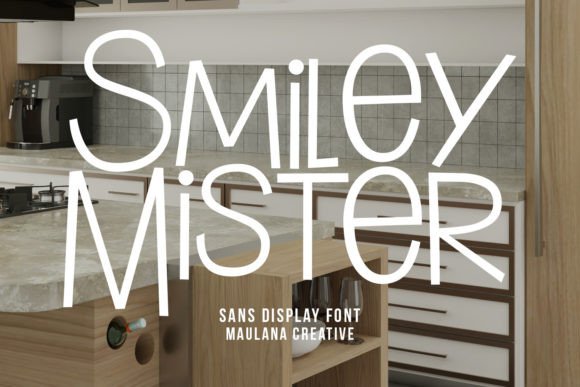
Looking for the perfect font for your sports design project? Look no further than Mister Smiley Font! This quirky and bouncy handwritten sans serif font is the perfect choice for anyone who wants to add a touch of personality and fun to their designs.
Created by the talented team at Maulana Creative, Mister Smiley Font is masterfully designed to become a true favorite among designers and creatives of all types. With its unique combination of playful curves and bold lines, this font is sure to catch the eye and add a touch of energy to any project.
Whether you're designing a sports logo, creating a team poster, or putting together a sports-themed website, Mister Smiley Font is the perfect choice. With its bold, expressive style, this font has the potential to take your creative ideas to the highest level.